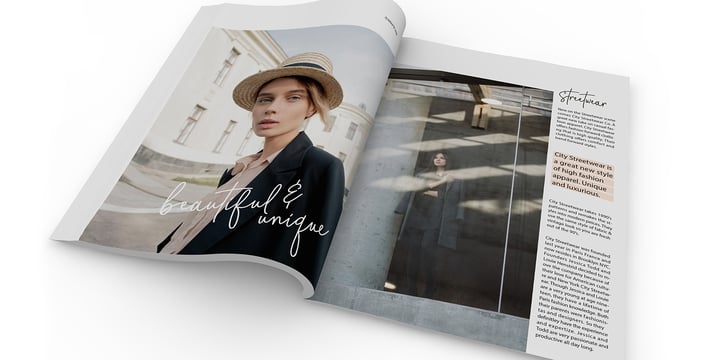
About City Streetwear Font Family
City Streetwear is a sophisticated signature collection that includes four script weights and plenty of ligatures.
City Streetwear scripts includes 102 ligatures and 6 alternates. Ligature programming has been added to the fonts to give the scripts a more handwritten and luxurious appeal.
SCRIPT FEATURES:
Signature style
OpenType
Common ff fi fl ffi ffl ligatures
102 ligatures and 6 alternates.
Programmed ligature feature for optimization. Every time you type specific pairs, ligatures are programmed to pop up to avoid letter pair collisions. Programming ligatures gives the script a more sophisticated flow. Make sure to turn on the feature in your preferred program that supports ligatures.
FREE WORDS FEATURES:
68 free words useful for fashion, marketing and social media promoting.
Keyword examples include fashion, exclusive, and style.
Intended use for fashion, apparel, beauty, marketing, social media, websites, magazines, sales, film and packaging.
Shorter version
102 ligatures and 6 alternates
Common ff fi fl ffi ffl ligatures
Includes the common alphabet, numbers, American symbols and punctuation.
Extended version of the American (US) version.
102 ligatures and 6 alternate
Common ff fi fl ffi ffl ligatures
Includes characters for Albanian, Basque, Catalan, Cornish, Croatian, Czech, Danish, Dutch, English, Esperanto, Estonian, Feroese, Finnish Scots, French, Gaelic, Galician, German, Greek Transliterated, Hawaiian, Hungarian, Icelandic, Indonesian, Irish, Italian, Latvian, Lithuanian, Maltese, Nynorsk Bokmal Norwegian, Polish, Portuguese, Romanian, Slovak, Slovenian, Spanish, Swedish, Turkish, Welsh.
DISPLAY- The City Streetwear fonts work best as large headline text for optimization.
FONT USE- Use City Streetwear for fashion, apparel, beauty, marketing, social media, websites, magazines, sales, film and packaging.
City Streetwear